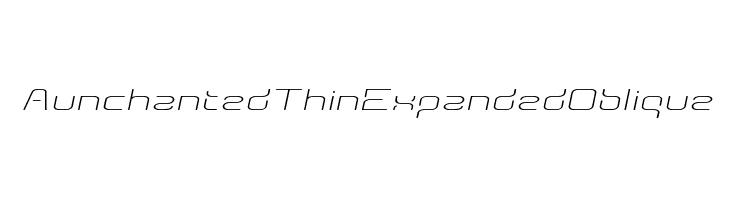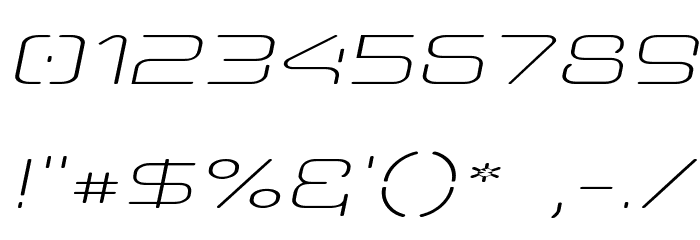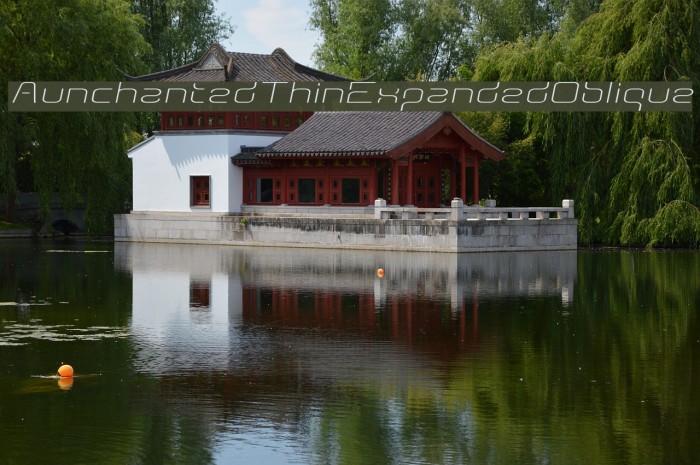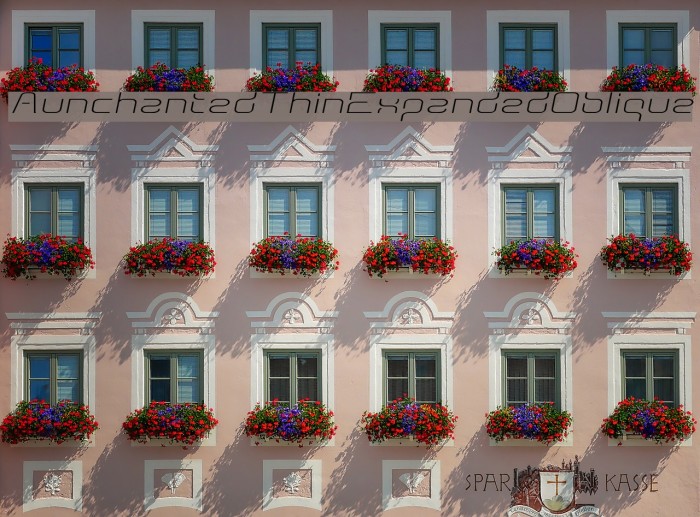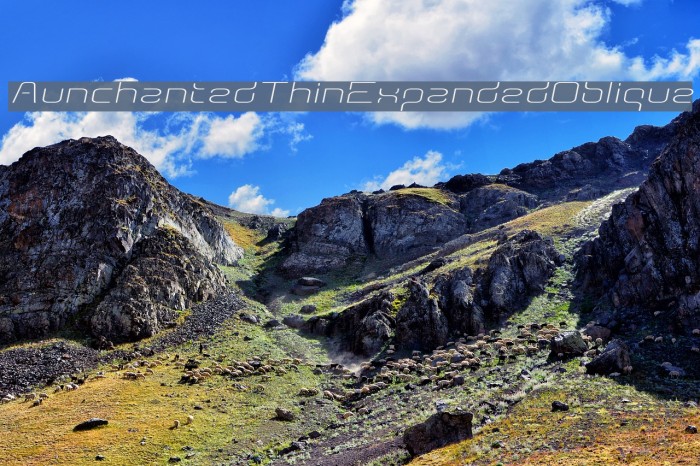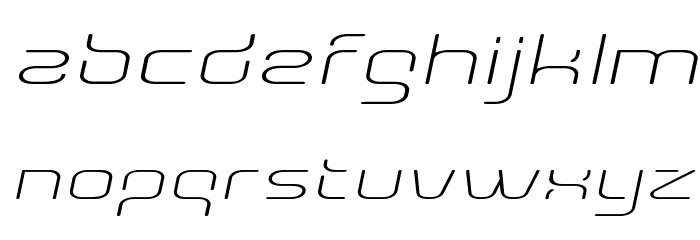
AunchantedThinExpandedOblique Font
AunchantedThinExpandedOblique Description
This font features a modern, futuristic design with a thin, expanded oblique style. The characters are sleek and elongated, giving a sense of motion and fluidity. The strokes are consistent in thickness, contributing to a low contrast appearance. The overall design is minimalistic, with a geometric influence that is evident in the angular cuts and curves. The spacing between characters is wide, enhancing readability and providing a clean, airy look. This font is suitable for projects that require a contemporary and innovative aesthetic.
| Width | Expanded |
| Overall Style | Futuristic, Geometric |
| Use Case | Logos, Headlines, Posters |
| Proposed Projects | Ideal for tech branding, sci-fi movie posters, modern art exhibits, and innovative product packaging. |